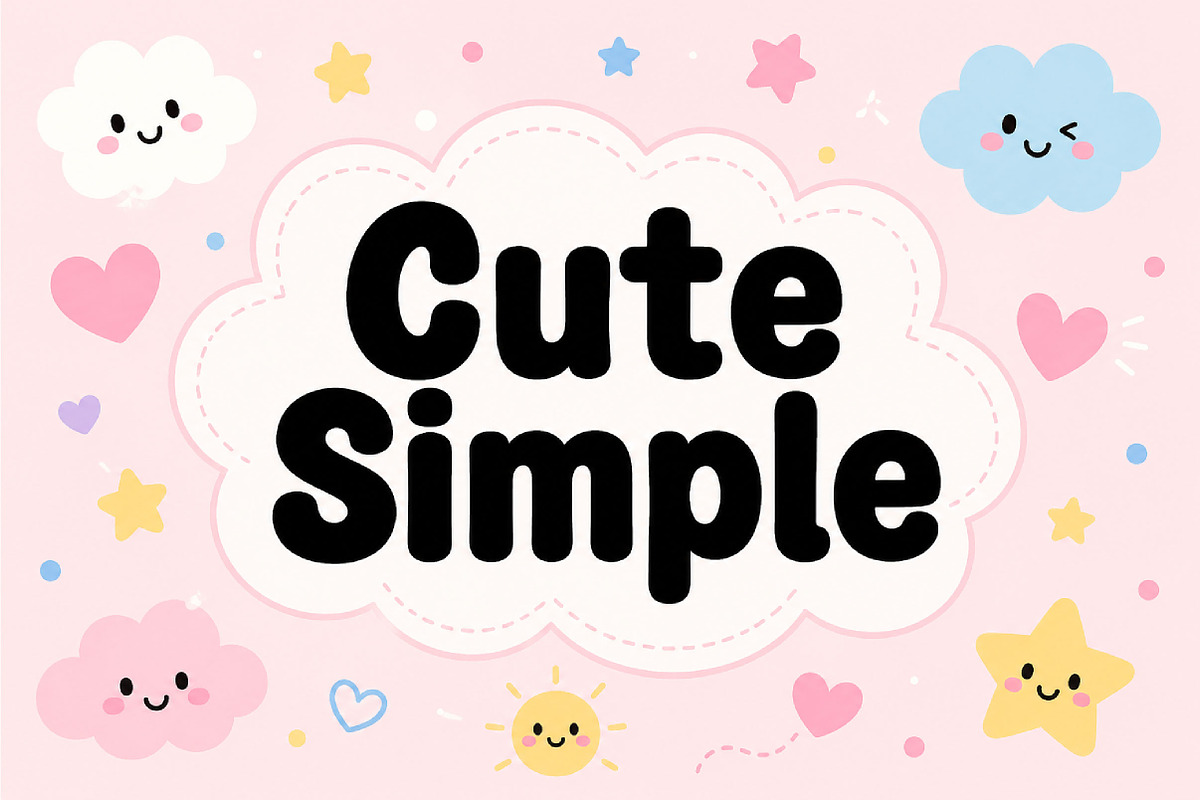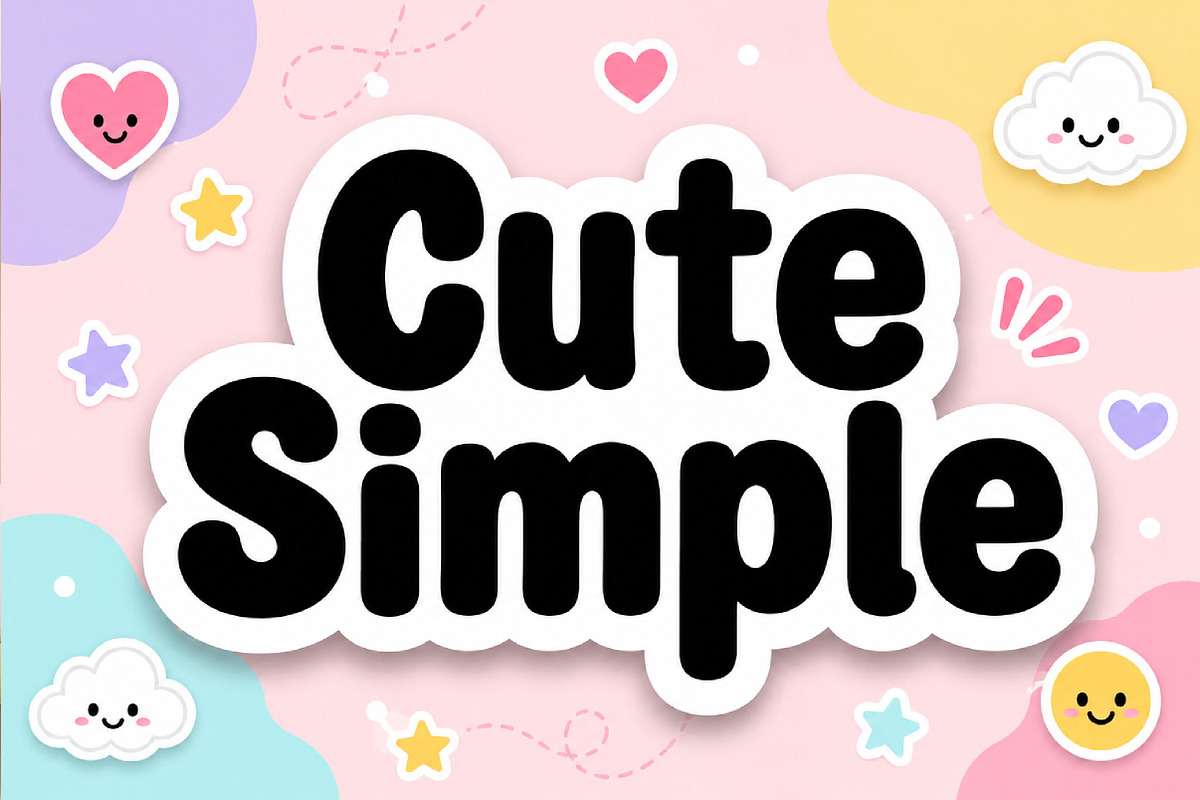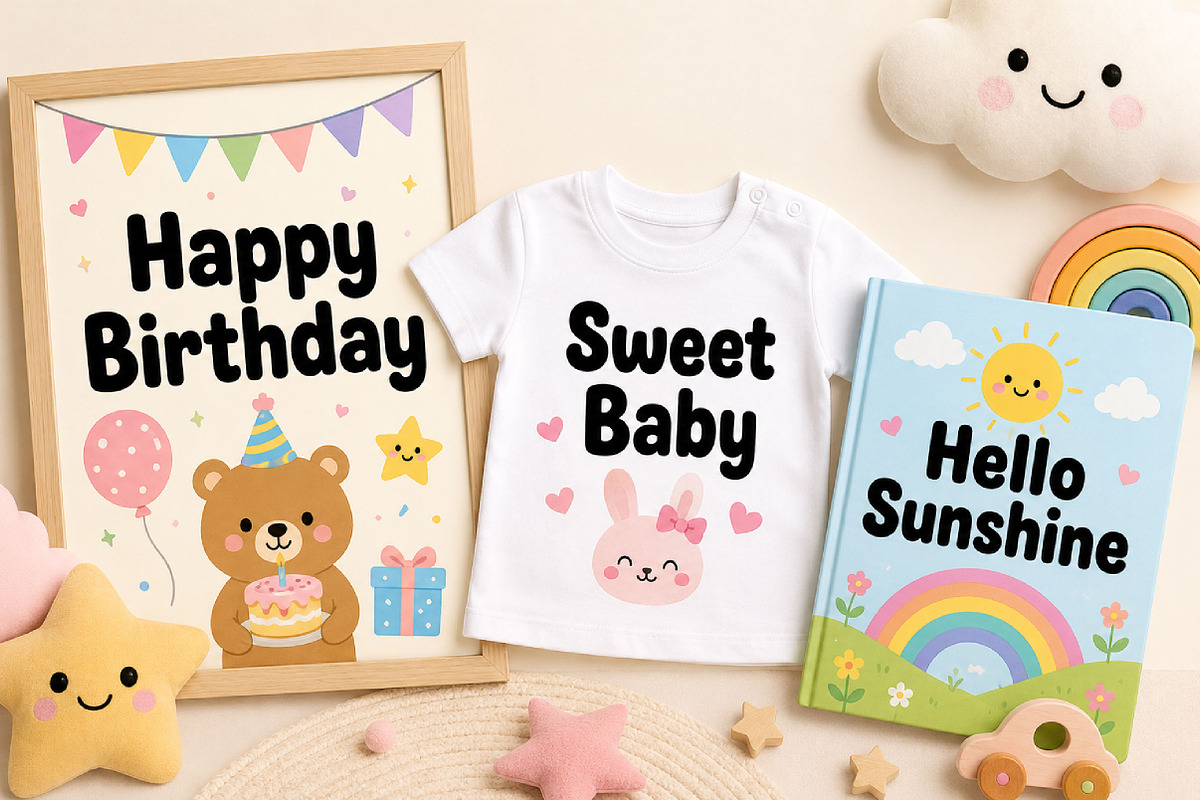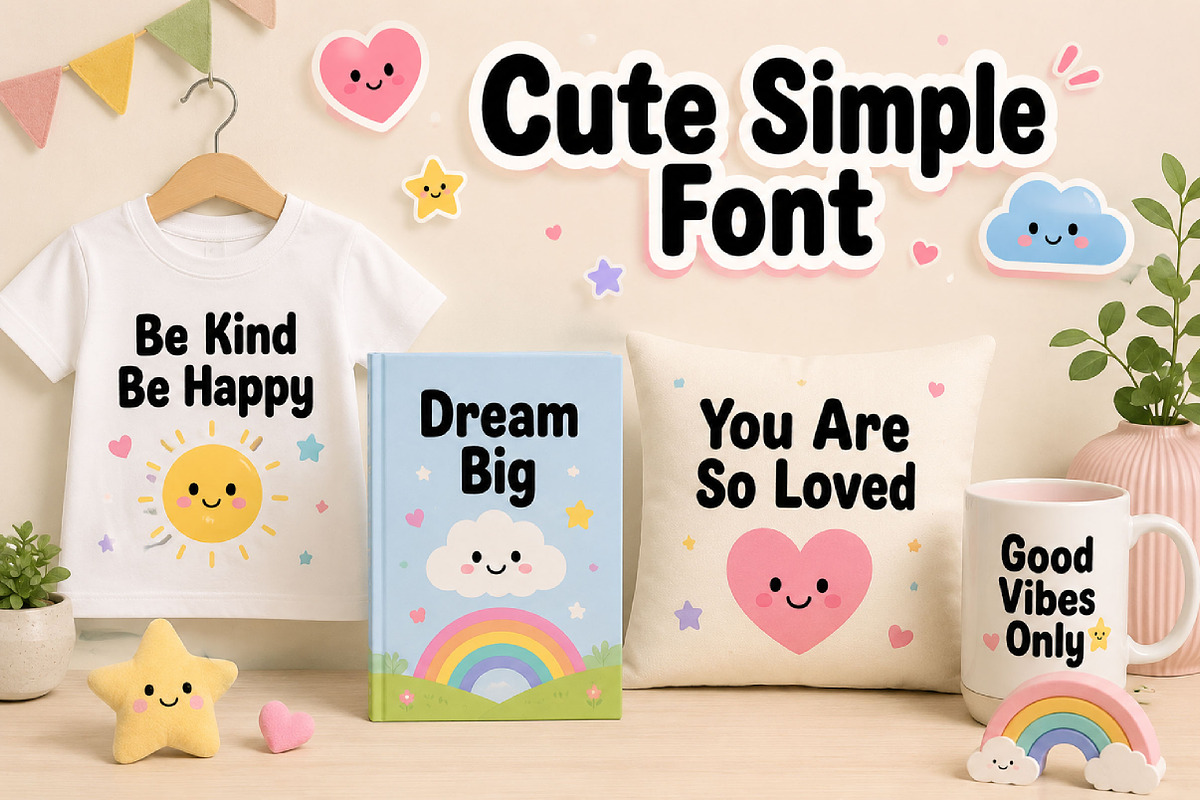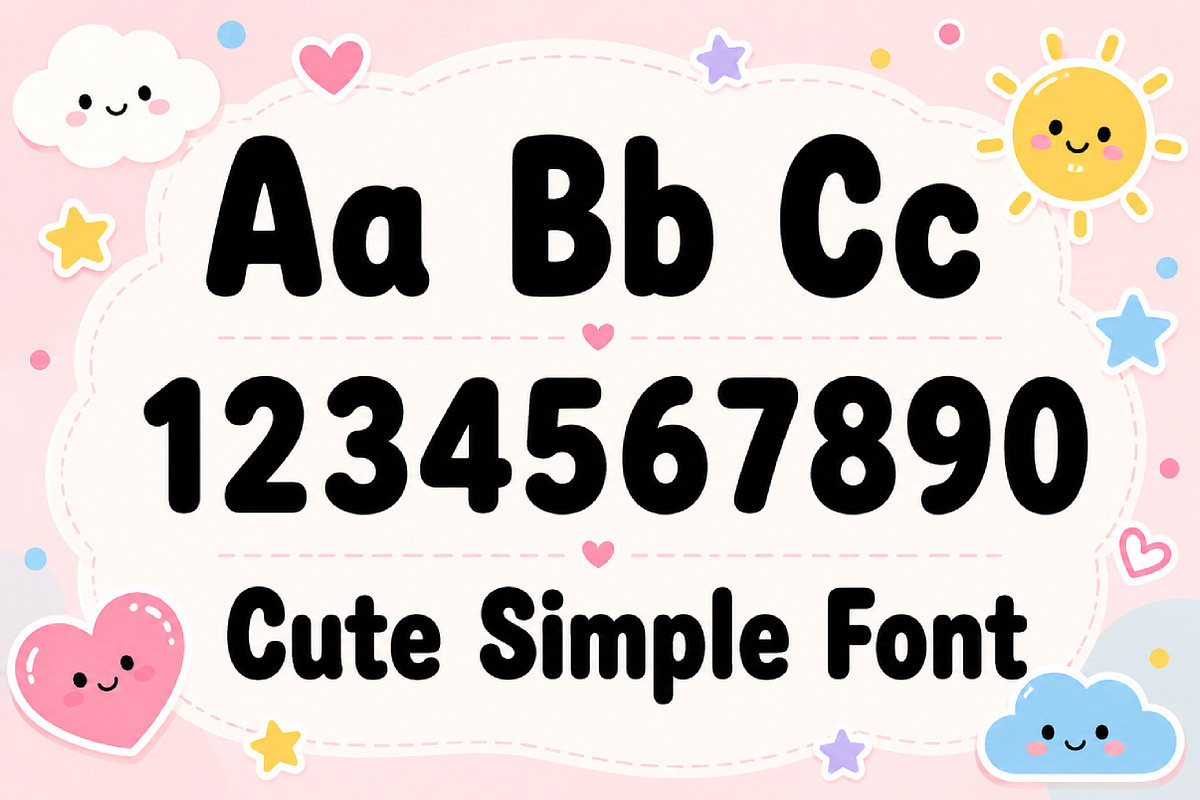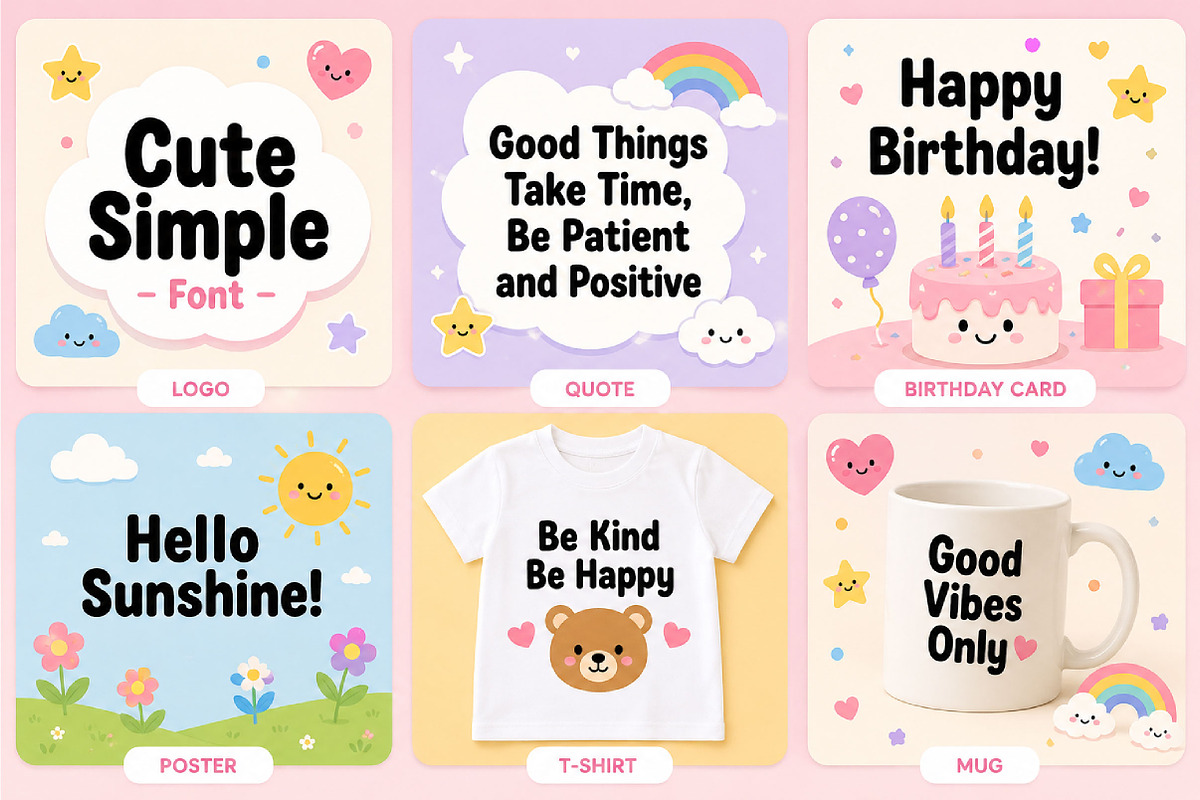
Cute Simple
Cute Simple – Playful Rounded Display Font
Cute Simple is a fun, bold, and rounded display font, perfect for kids’ designs, logos, posters, stickers, packaging, and cheerful creative projects.
Cute Simple is a playful rounded display font designed to bring a friendly, fun, and adorable look to your typography. With its thick shapes, soft curves, and bubbly letterforms, this font creates a cute and cheerful style that instantly feels warm and approachable.
Its simple yet eye-catching design makes Cute Simple perfect for projects that need a happy and youthful personality. Use it for posters, logos, children’s books, product packaging, stickers, social media graphics, apparel, classroom materials, and playful branding.
The bold rounded structure makes it easy to read while still feeling charming and expressive. Cute Simple is ideal for both print and digital designs that need a sweet, friendly, and memorable display font.
Kids’ designs
Posters and headlines
Logos and branding
Stickers and labels
Product packaging
Children’s books
Apparel and merchandise
Classroom materials
Cute and playful themes
Uppercase letters
Lowercase letters
Bold rounded style
Cute and playful appearance
Simple display design
Friendly letterforms
Perfect for display use